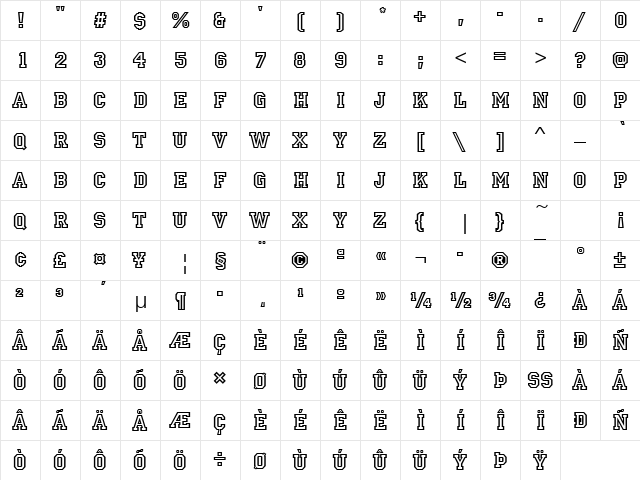
PrincetownD Regular
Design Context for PrincetownD Typeface
PrincetownD offers clean, dependable letterforms without strong stylistic allegiance, making it a practical choice for designers who need flexibility.